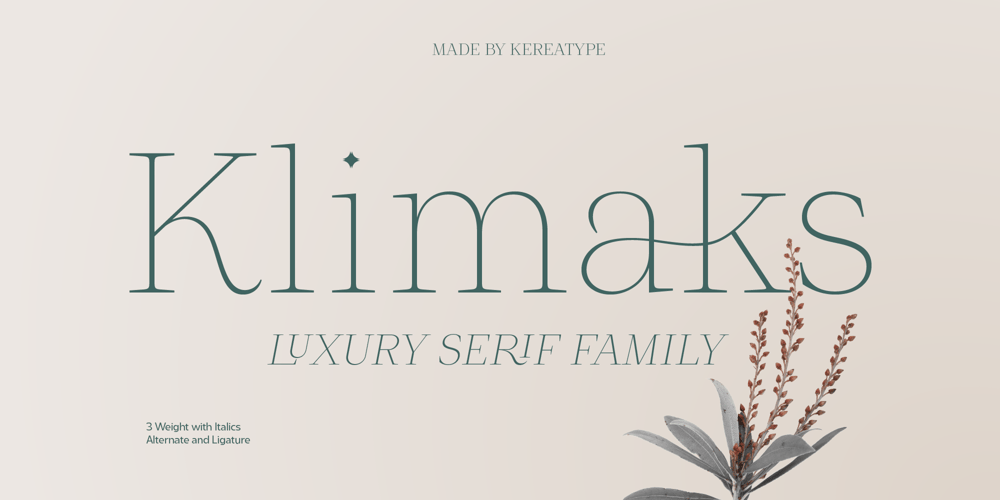
Klimaks Font Family was designed by Amal Yusuf and published by Kereatype. Klimaks contains 6 styles and family package options. Klimaks is a modern serif font family whose design refers to the style of transitional serifs. In the process of working on Klimaks font, we have significantly revised the initial idea and expanded the areas of possible font application, while maintaining the original spirit of the project. Despite a large number of display details, the typeface looks great in small point sizes, and also when it is used in large text arrays.Klimaks – Luxury Serif Font has been crafted from scratch with a structural logic of its own: a fusion of pure geometry and optical balance. By combining a variety of styles Klimaks Font is suitable for Logo, greeting cards, quotes, posters, branding, name card, stationary, design title, blog header, art quote, typographyKlimaks – Luxury Serif Font also suitable for art, modern envelope lettering or book design, happening style like the hand-drawn design or watercolor design theme, craft design, any DIY project, book title, wedding font, pop vintage design, or any purpose to make our art/design project look pretty and trendy.